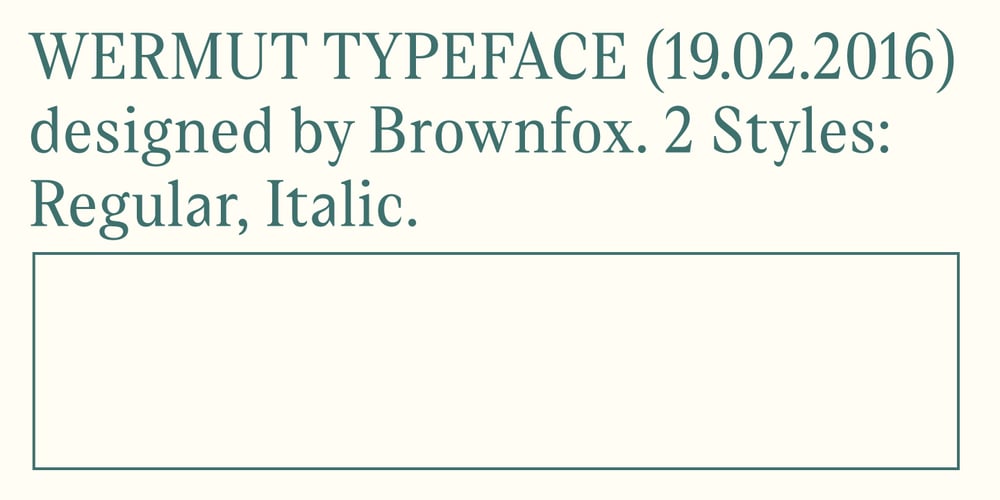
Wermut Font Family was designed by Gayaneh Bagdasaryan S, Vyacheslav Kirilenko and published by Brownfox. Wermut contains 2 styles and family package options. An intoxicating blend of rare flavours is what makes the new transitional typeface Wermut (German for vermouth) resemble its alcoholic namesake. Bitter and thorny at first glance, it proceeds to surprise the palate with a complicated taste that leaves a pleasant aftertaste. Wermut may not be taken in hastily, but needs to be thoughtfully enjoyed at a measured pace. Its dark colour, compressed, spring-like, shapes, well-built proportions, and agreeable letterforms all look safe enough until one is jolted to encounter the clipped serifs that lend the page an unexpectedly edgy appearance. The font comes in two weights with an extended character set in Latin and Cyrillic scripts supporting 66 languages. A product of slow, careful distillation, this infusion of multiple ingredients comes together to form a unique mature taste which will be appreciated by true connoisseurs of typographic cocktails. Desined by Gayaneh Bagdasaryan and Vyacheslav Kirilenko.